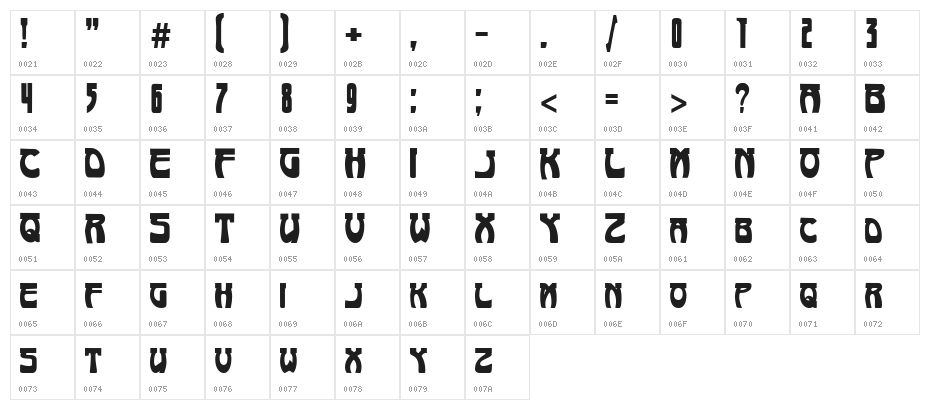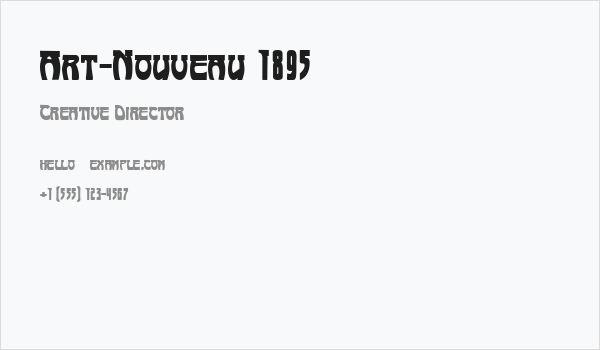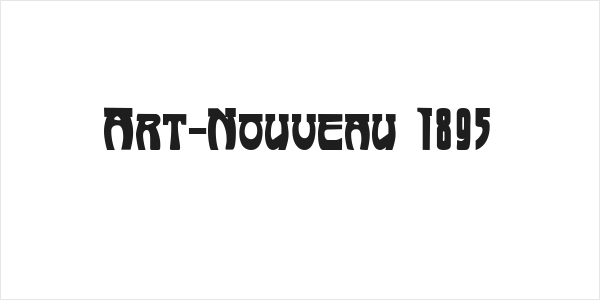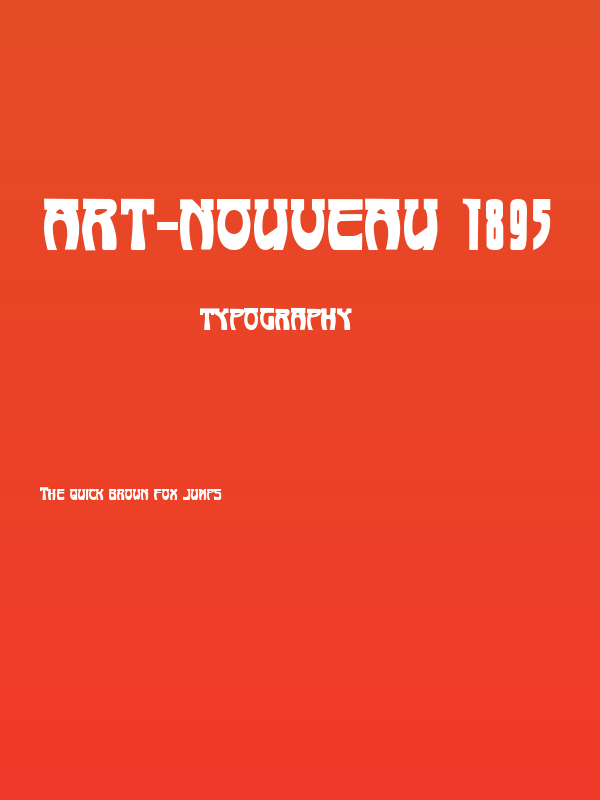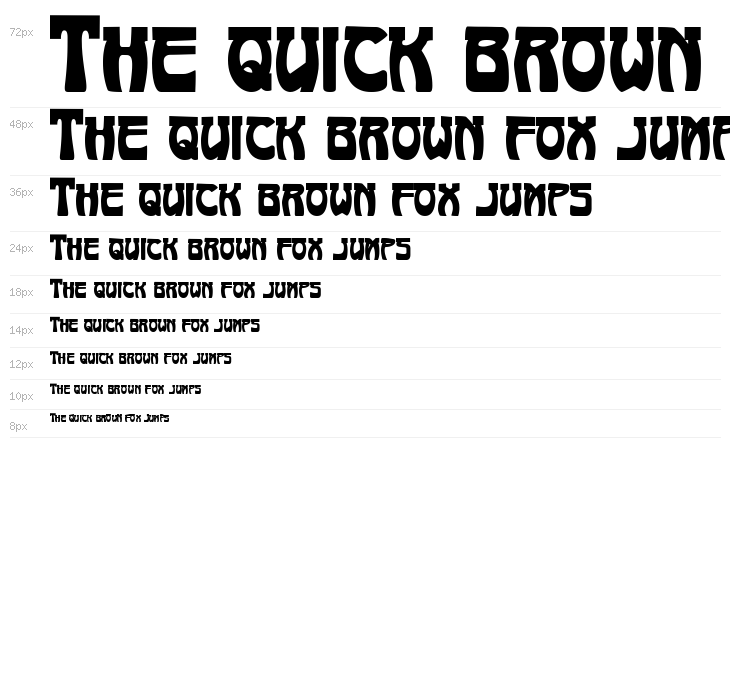
Art-Nouveau 1895 Font
Art-Nouveau 1895 Description
This font embodies the essence of the Art Nouveau movement with its bold, flowing lines and intricate curves. Each character is crafted with a sense of elegance and fluidity, reminiscent of natural forms and organic shapes. The uppercase letters feature strong, sweeping strokes that create a sense of movement and dynamism. The lowercase letters maintain this aesthetic with slightly more compact forms, ensuring readability while preserving the artistic flair. The numerals are equally stylized, offering a cohesive look across all characters. This font is perfect for projects that require a touch of vintage sophistication and artistic expression.
| Use Case | Headlines, Logos, Decorative text |
| Proposed Projects | Ideal for vintage posters, artistic invitations, branding for creative industries, and decorative signage. |